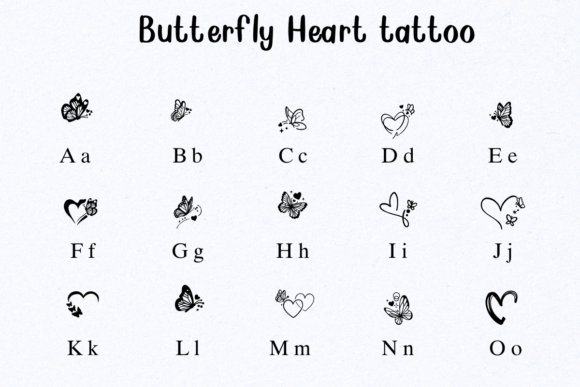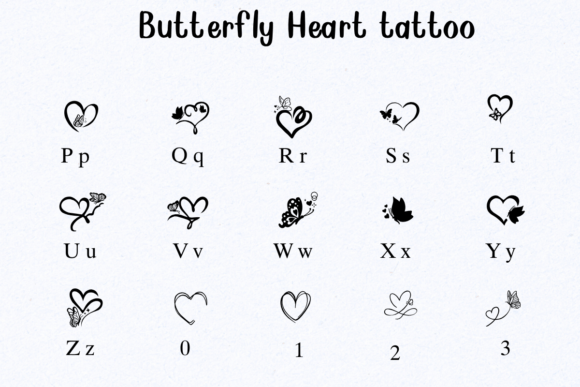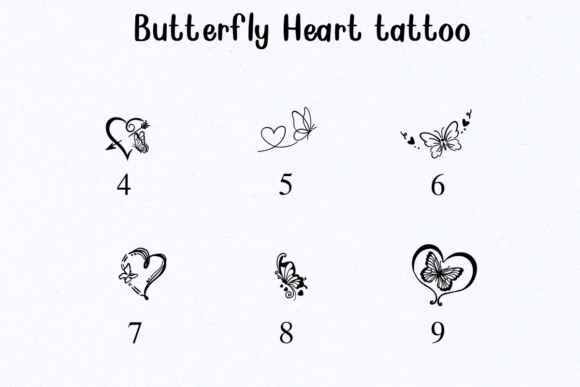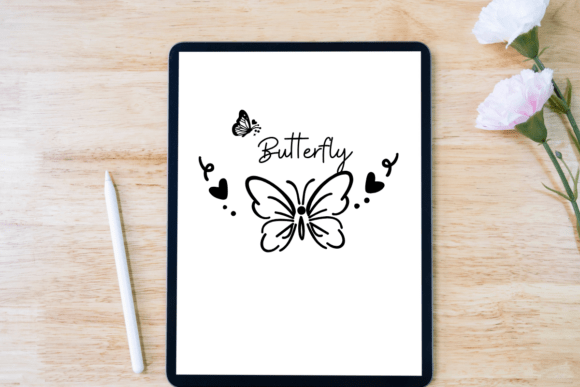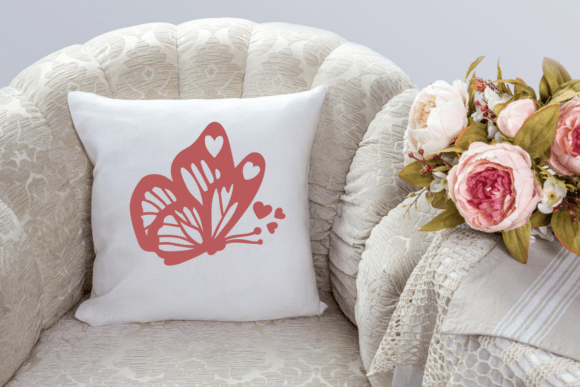
Get Ready to Soar with Butterfly Heart Tattoo Font
That’s where the Butterfly Heart Tattoo Font comes in – a cool and unique dingbats font designed to add a touch of whimsy to your creative projects. This charming font is perfect for designers looking to add a playful twist to their work, and its versatility makes it a valuable addition to any design toolkit.
Key Features of Butterfly Heart Tattoo Font
- Unique Characteristic: Whimsical, hand-drawn design with intricate details and a touch of elegance, perfect for tattoo art.
Butterfly Heart Tattoo Font Review
The Butterfly Heart Tattoo Font is a whimsical and romantic font that could be perfect for a specific project. Here are the things that work well:
- ✨ Beautiful, flowing lines that resemble hand-drawn illustrations
- ✨ Elegant and feminine touch, ideal for wedding invitations, love quotes, or other sentimental designs
- ✨ Highly customizable with various font styles and sizes to suit your design needs
- ⚠️ Limited versatility – it’s best suited for romantic or whimsical projects, not for corporate or technical designs
- ⚠️ May not be the best choice for large blocks of text, as it can become difficult to read
- ⚠️ Not ideal for projects that require a bold or edgy look
Overall, I think the Butterfly Heart Tattoo Font is a lovely addition to any designer’s toolkit, but it’s essential to understand its limitations and use it judiciously. With the right project, it can add a touch of magic and romance that will leave a lasting impression on your audience.
Use the Butterfly Heart Tattoo Font for:
- Personalized tattoos or tattoo designs.
- Wedding invitations or other romantic designs.
- Emotional or inspirational quotes.
For the best results, use the font with a bold or distressed effect to give it a unique, tattoo-like appearance.